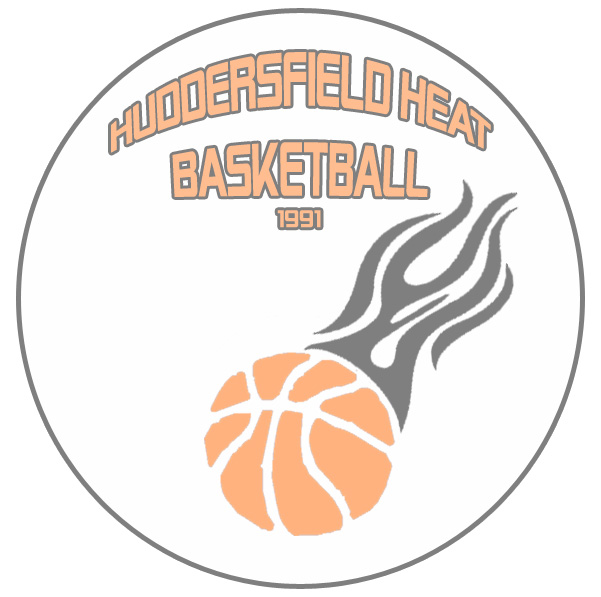
Does anyone know what typeface this is? I have searched thru mine and i dont seem to have it. Cheers 🙂
Mich81 said: View attachment 57997 Does anyone know what typeface this is? I have searched thru mine and i dont seem to have it. Cheers 🙂 Click to expand... This should be a sticky ... identifont.com peace | neut
Identifont is great; I love that site. 🙂 I didn't have any good leads on Identifont myself with this one though. Serpentine is the closest font I've used, but it's not an exact match.
eyup macrumors regular Sep 20, 2006 #4 go here and upload that image in the forum - worth a bash: http://www.myfonts.com/WhatTheFont/
eyup said: go here and upload that image in the forum - worth a bash: http://www.myfonts.com/WhatTheFont/ Click to expand... I tried that...it's my usual tool for this sort of thing. No luck. I think part of the problem is that the text is distorted by curving it, so automated font identifiers can't get a handle on it.